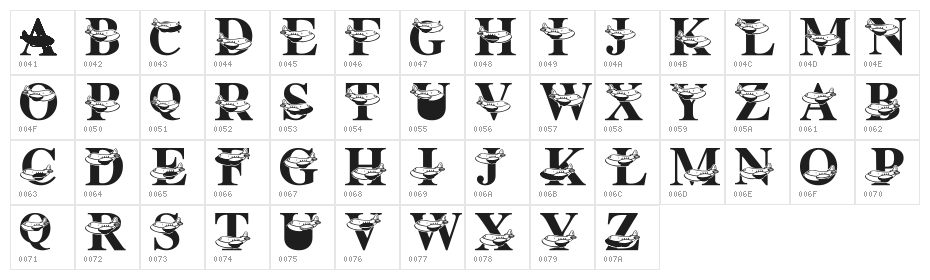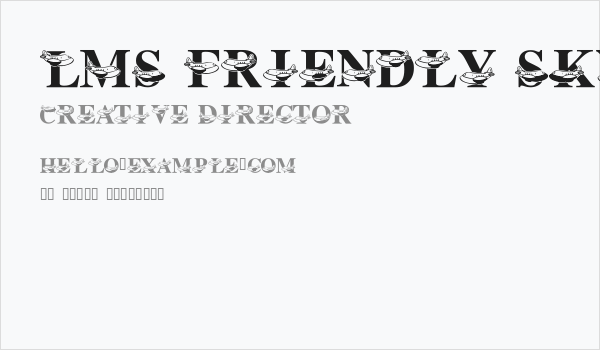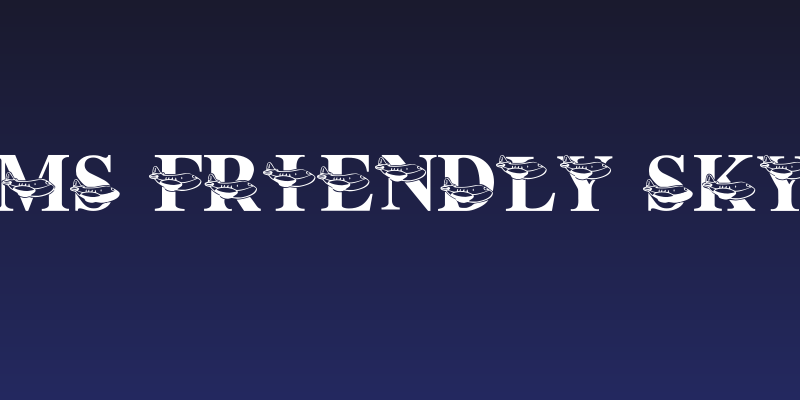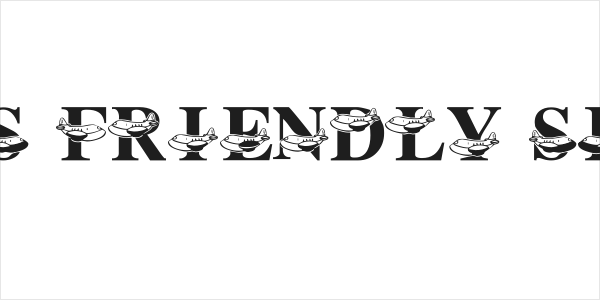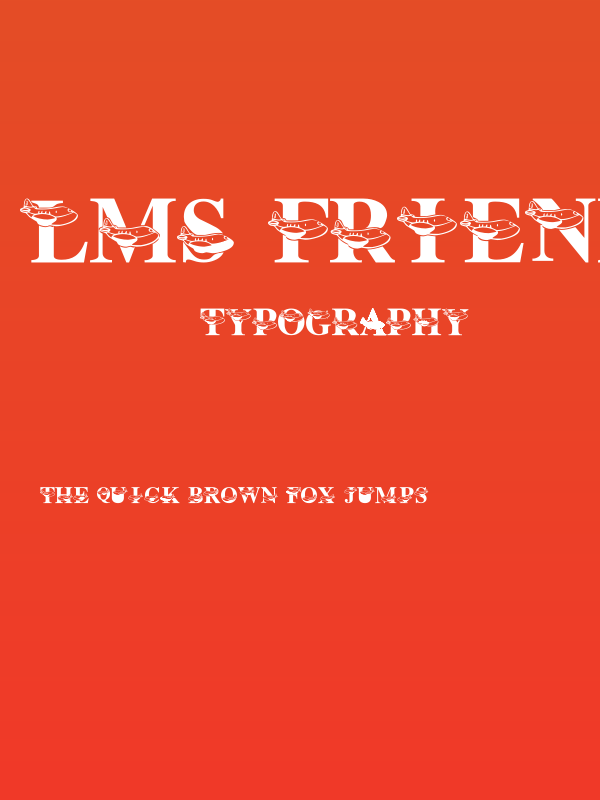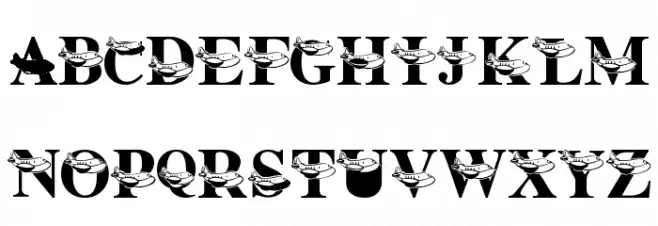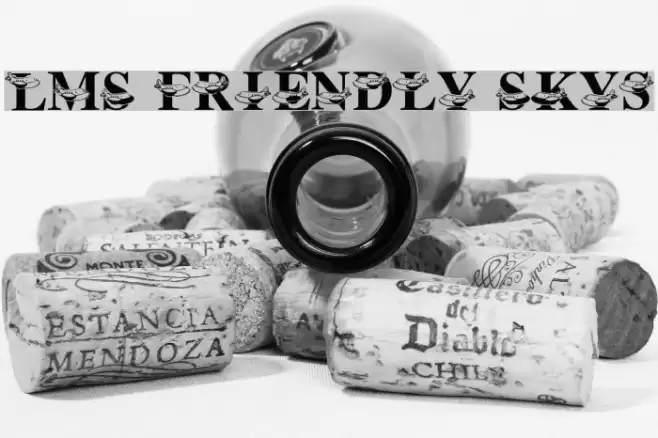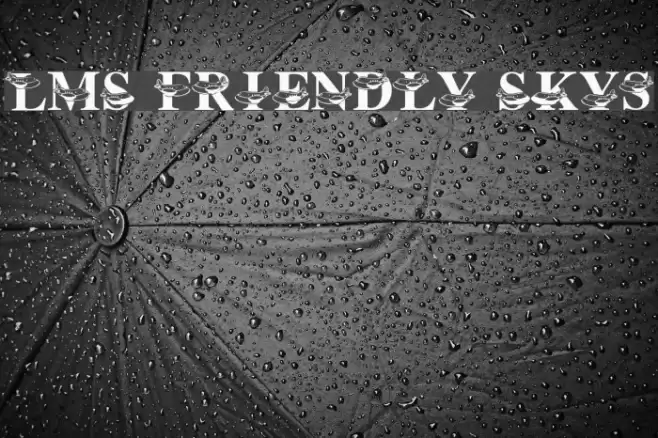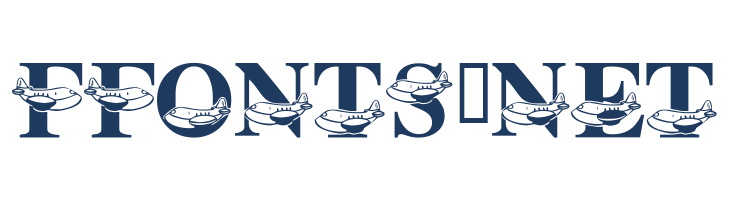
LMS Friendly Skys Font
This decorative font features bold, uppercase letters with playful airplane illustrations integrated into the design. The planes are positioned horizontally across the midsection of each letter, creating a whimsical and dynamic appearance. The font maintains a classic serif structure, providing a strong and traditional base, while the added graphics introduce a unique and engaging visual element. This combination makes it particularly eye-catching and suitable for creative projects that require a touch of fun and imagination.
| Proposed Projects | Ideal for children's books, aviation-themed posters, playful branding, or any project that seeks to combine classic typography with a whimsical twist. |